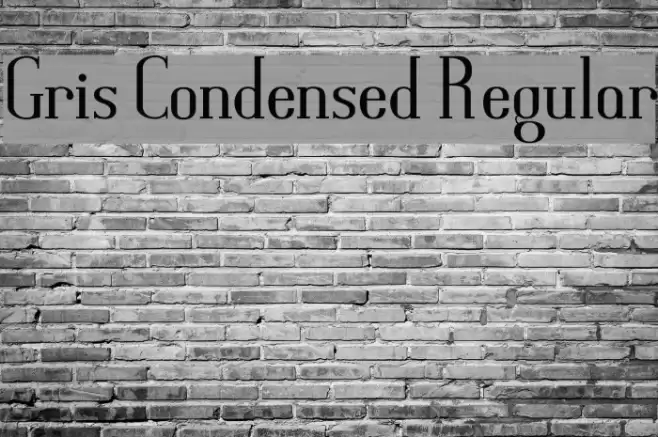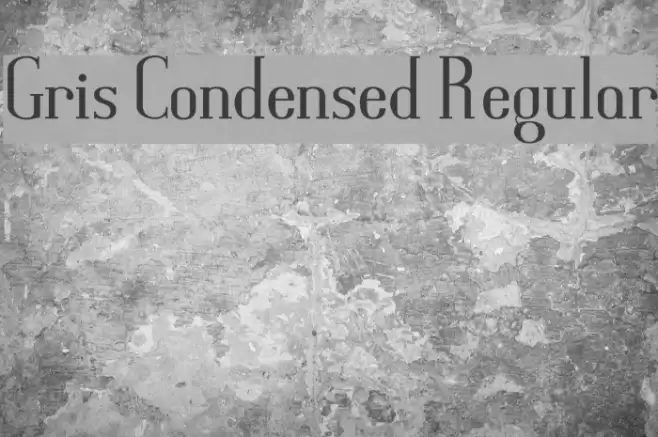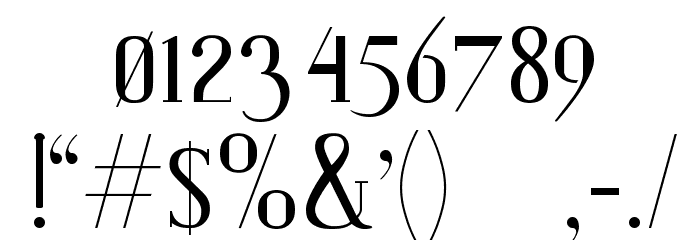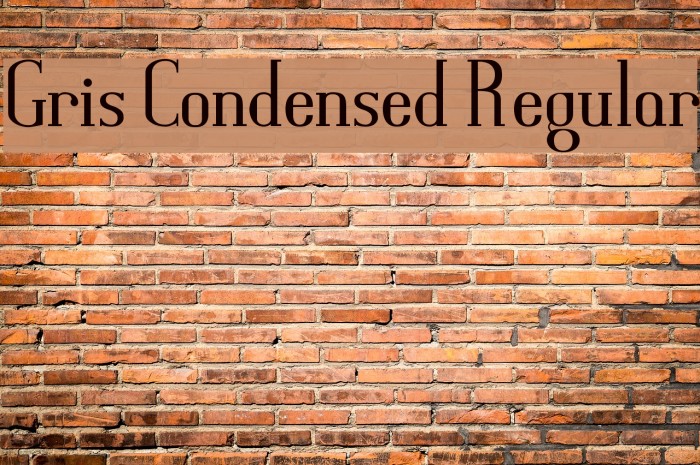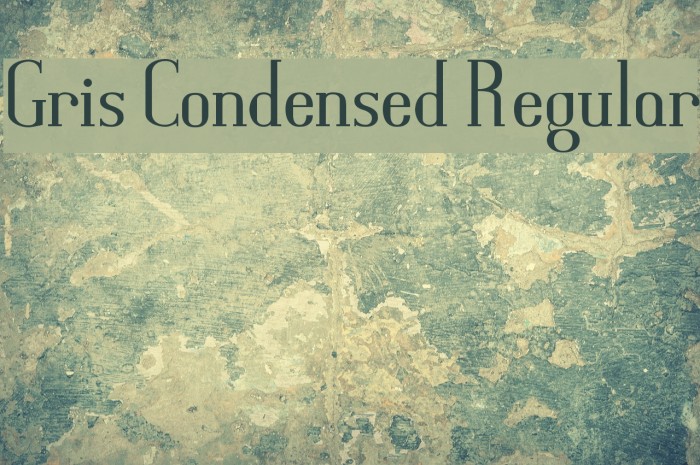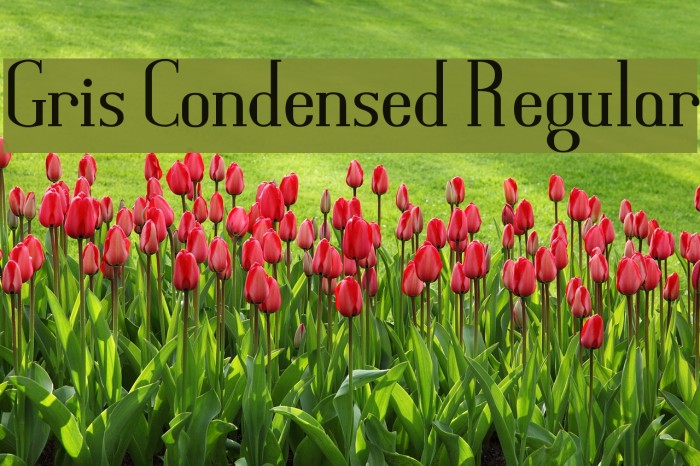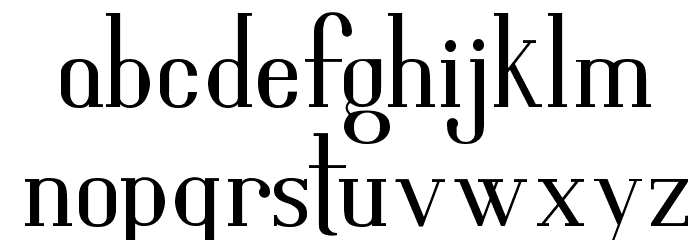
Gris Condensed Regular Font
Gris Condensed Regular Description
This font features a condensed serif style with a modern twist. The uppercase letters are tall and elegant, with a slight contrast in stroke thickness that adds sophistication. The lowercase letters maintain a consistent style, offering a harmonious blend of traditional serif elements with a contemporary feel. The numerals are distinct and clear, ensuring readability. Special characters are designed with the same attention to detail, making them suitable for various applications. The overall design is sleek and professional, making it versatile for different design needs.
A modern, condensed serif font with elegant strokes and high readability from Uncategorized fonts.
- Proposed Projects: Ideal for editorial design, branding projects, and sophisticated print materials.